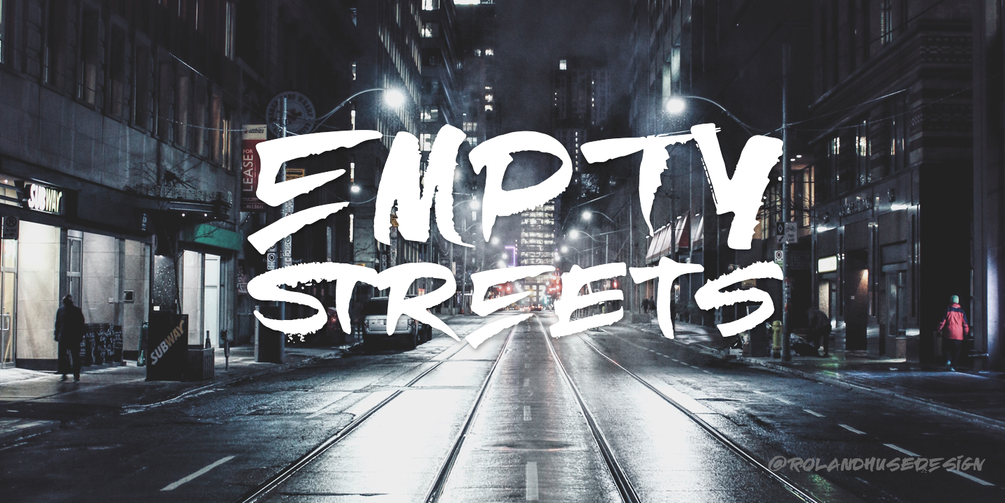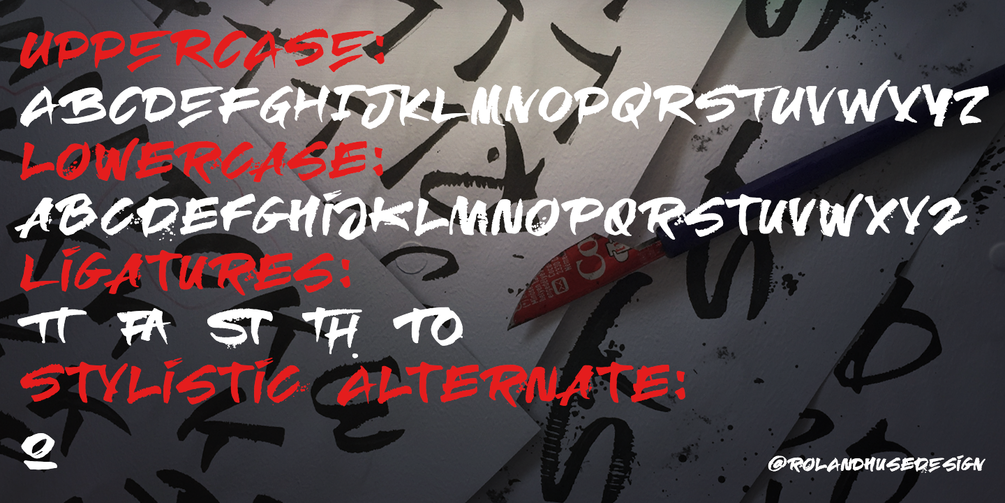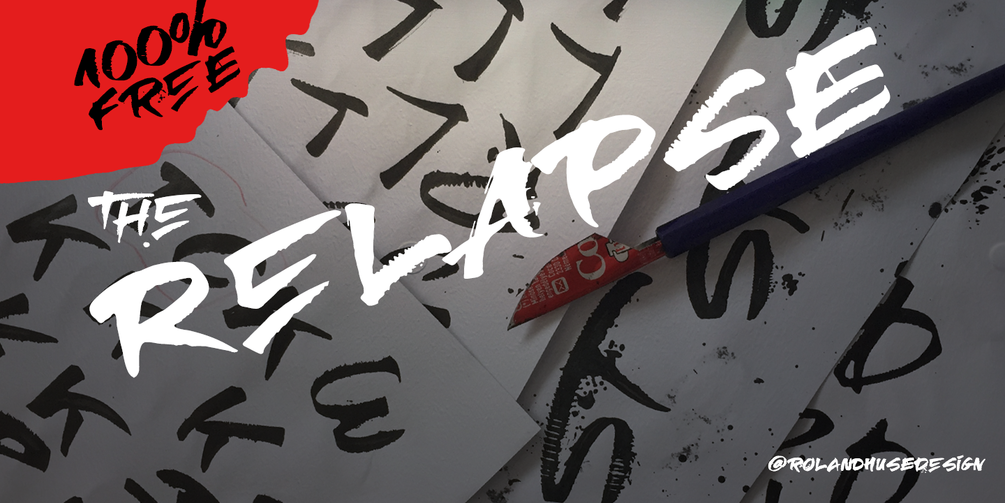
Relapse Brush Font
RELAPSE is a 100% handmade and FREE font both for personal and commercial use, even the tool it’s made with is D.I.Y. which is a folded pen made out of soda can.
This font is ALL uppercase characters but the glyphs in place of the lowercase set you find a different version of each letter so you can play around and combine upper and lowercase in order to get the best and more natural result. The character set covers all Western and Eastern European accents and special characters.
There are some ligatures for :
TT FA IJ ST TH TO
and
a stylistic alternate for letter “O” (underlined “O”)